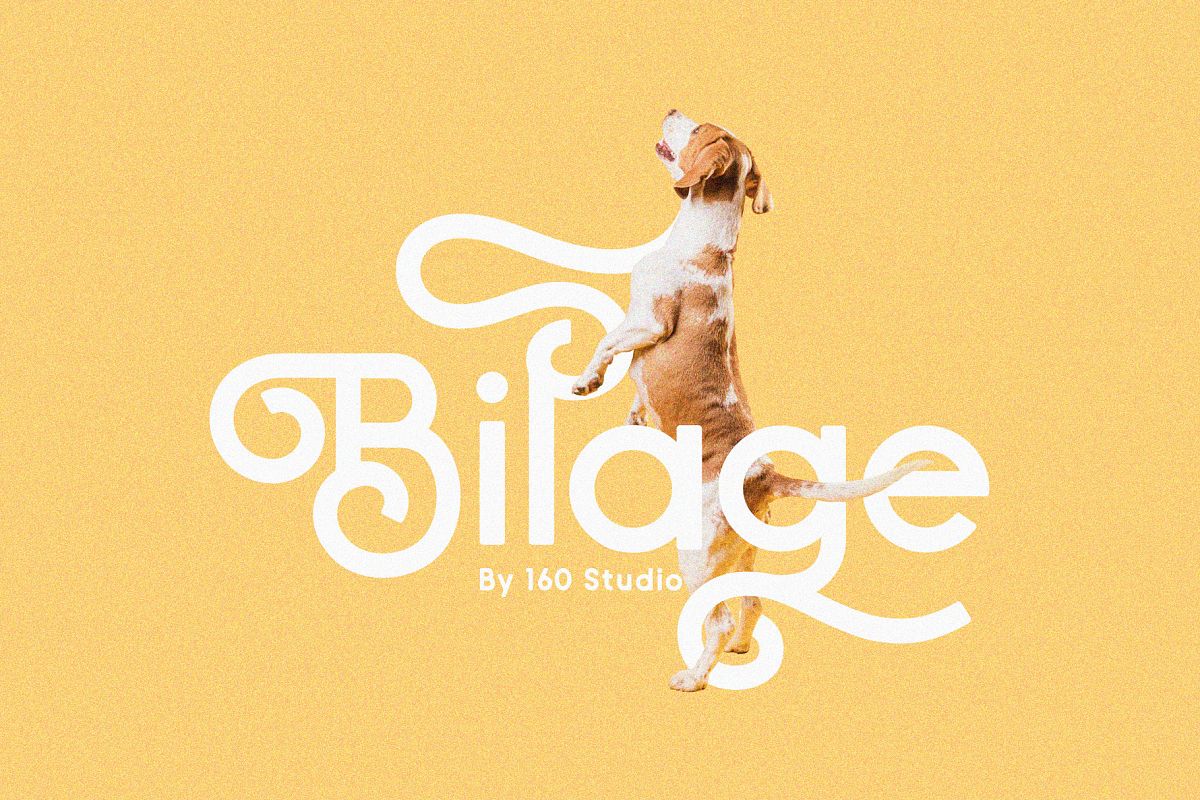
Bilage
Introducing Bilage
its simple, elegant and modern font.
you can switch between simple and complex typeface by using alternate charactes.
• more than 60 stylistic alternates